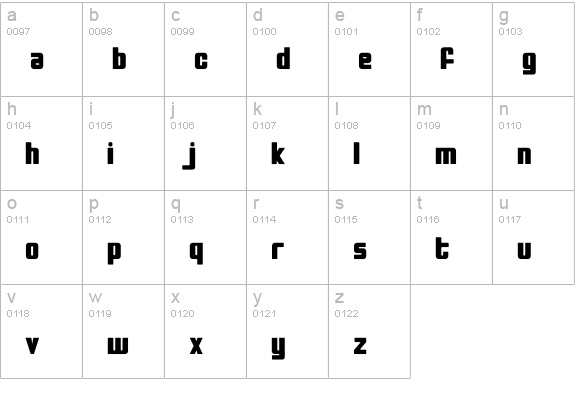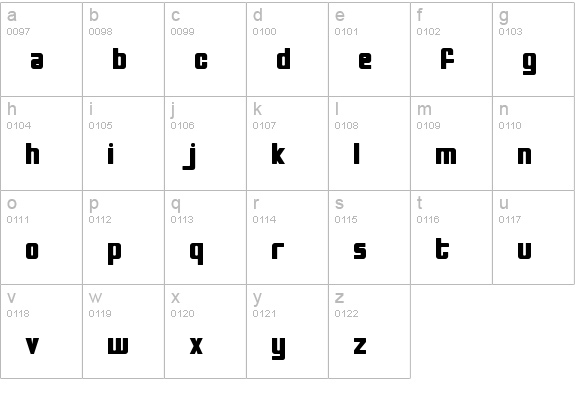
Bio-disc Solid font is a modern and sleek typeface that exudes a sense of sophistication and elegance. With its rounded edges and bold appearance, this font is perfect for creating eye-catching designs that command attention. The Bio-disc Solid font is versatile and can be used for a variety of projects, from branding to editorial design. Best of all, Bio-disc Solid font is available for free download at FontsMarket.com. This means you can easily access this high-quality font without any cost, making it a valuable addition to your font library. Don't miss out on the opportunity to enhance your designs with the striking Bio-disc Solid font - download it for free today!